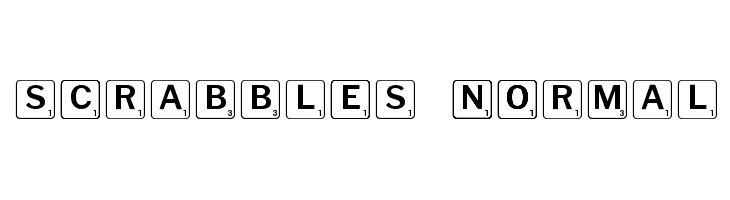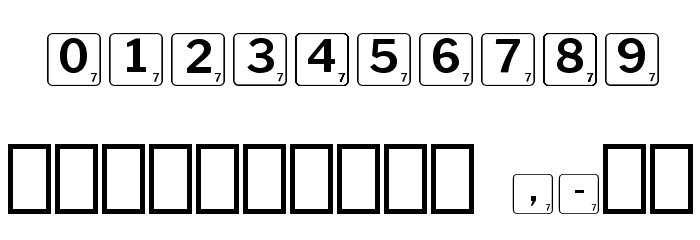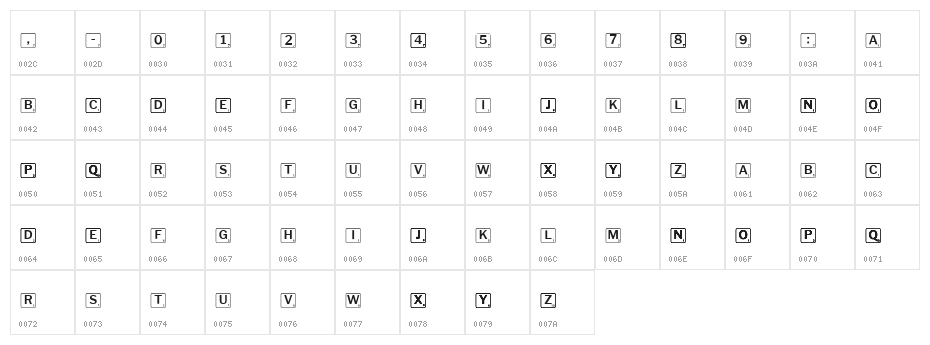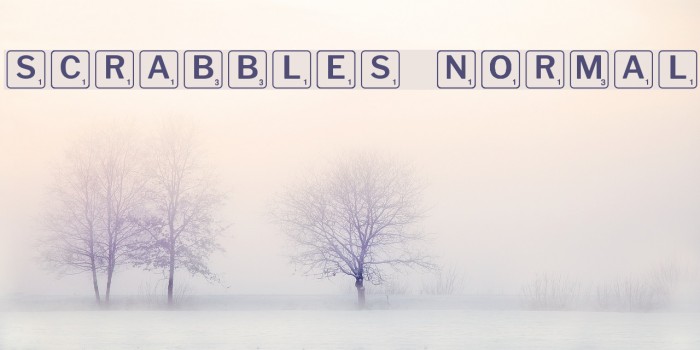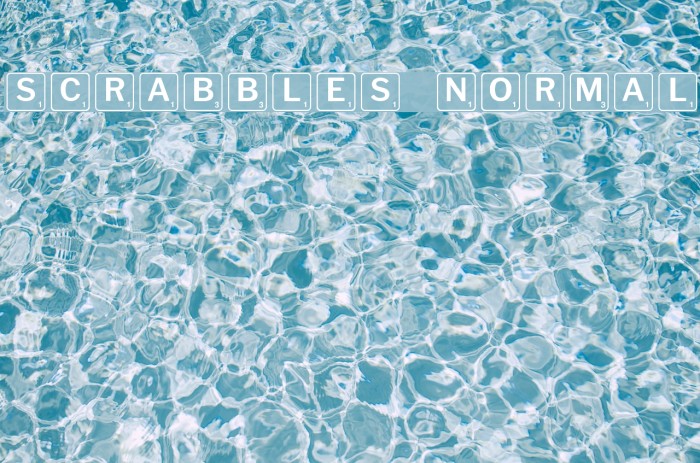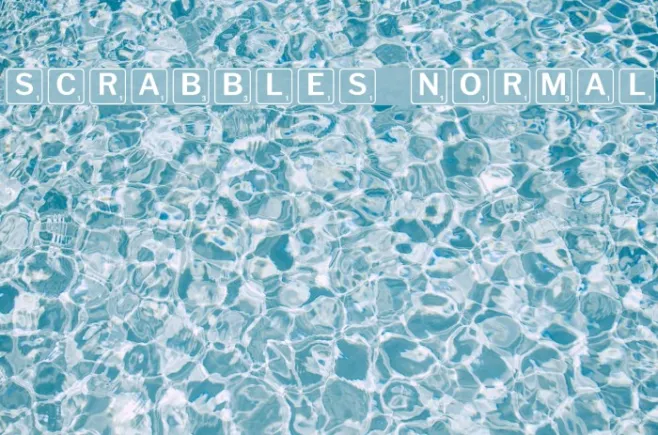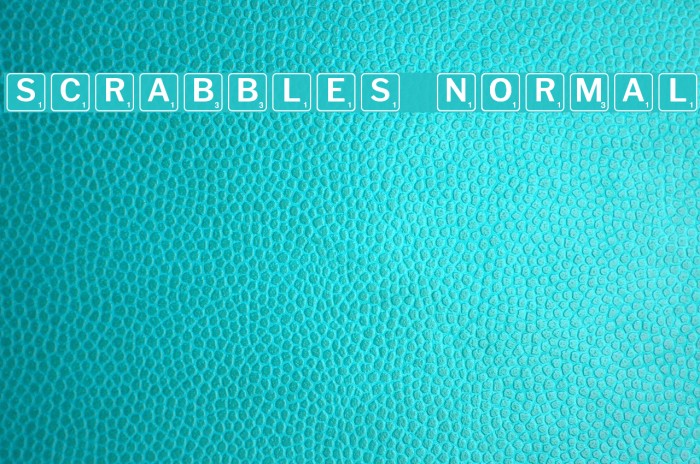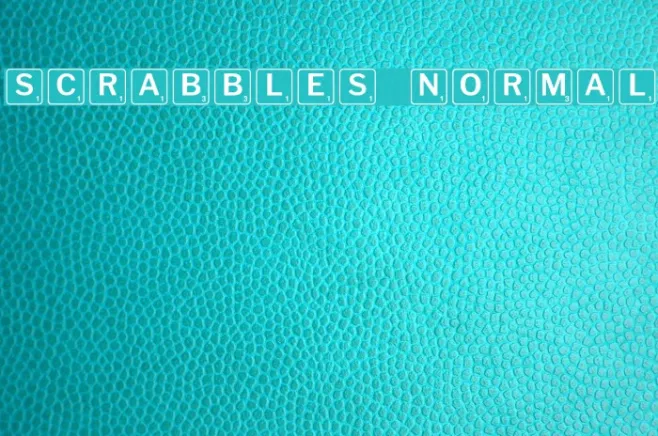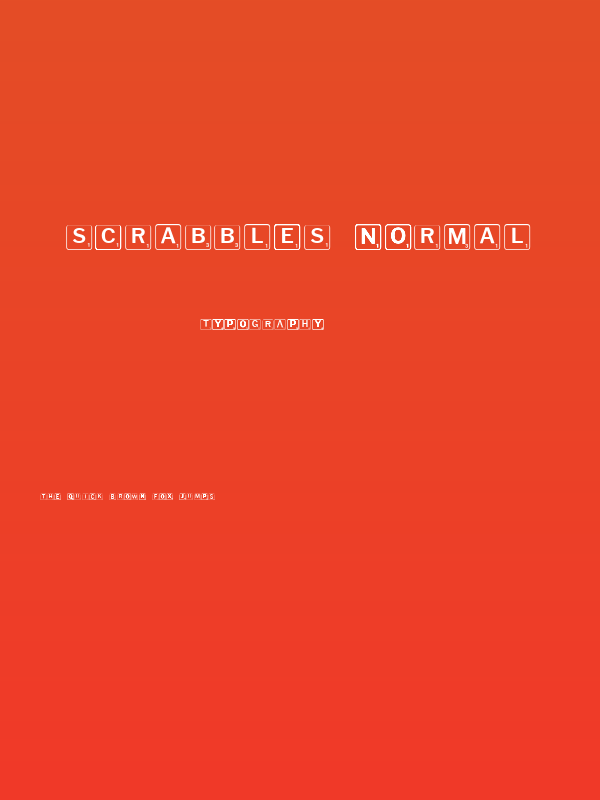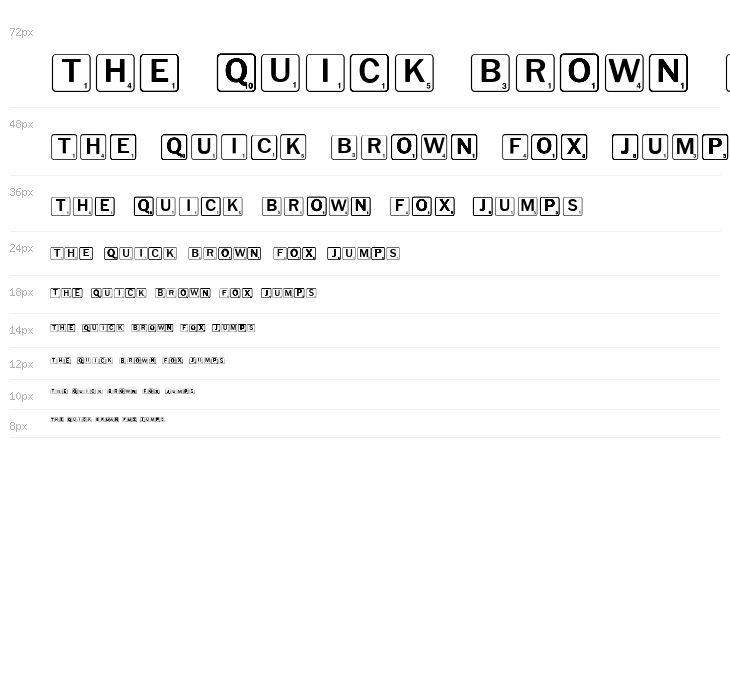
Scrabbles normal Font
Scrabbles normal Description
This font is designed to mimic the appearance of Scrabble tiles, featuring bold, uppercase letters and numbers enclosed within square borders. Each character is accompanied by a small subscript number, representing the point value in the game. The font is highly legible, with a clean and structured appearance, making it ideal for projects that require a playful yet organized aesthetic. The uniformity of the squares and the consistent spacing between characters contribute to its distinctive style. The font's design is both functional and decorative, capturing the essence of the classic board game.
| Overall Style | Playful, Structured |
| Use Case | Logos, Headlines, Themed Designs |
| Proposed Projects | Ideal for board game designs, educational materials, playful branding, and themed event invitations. |